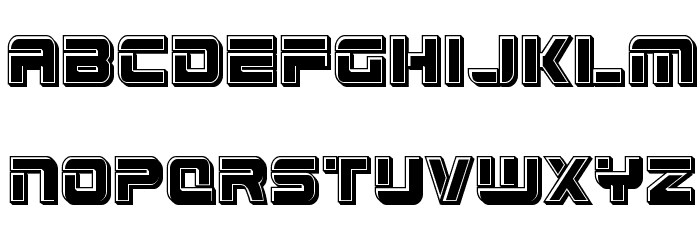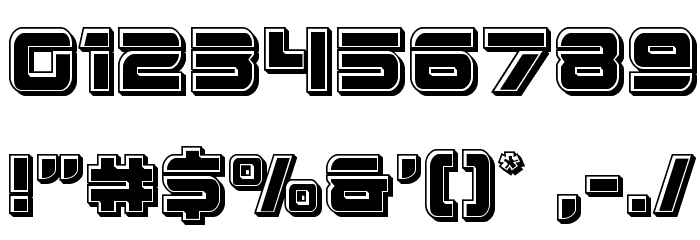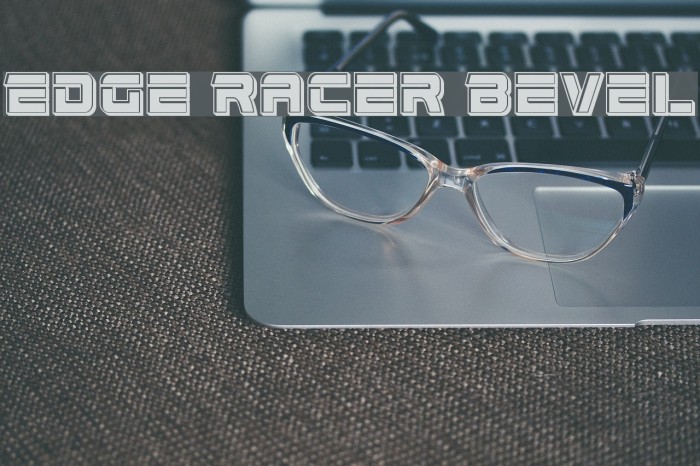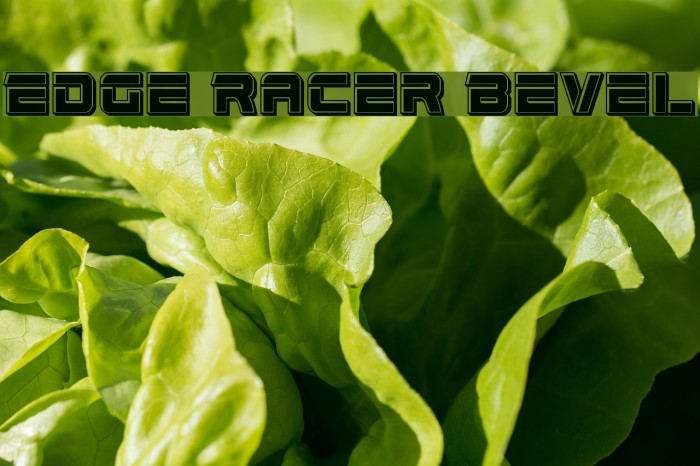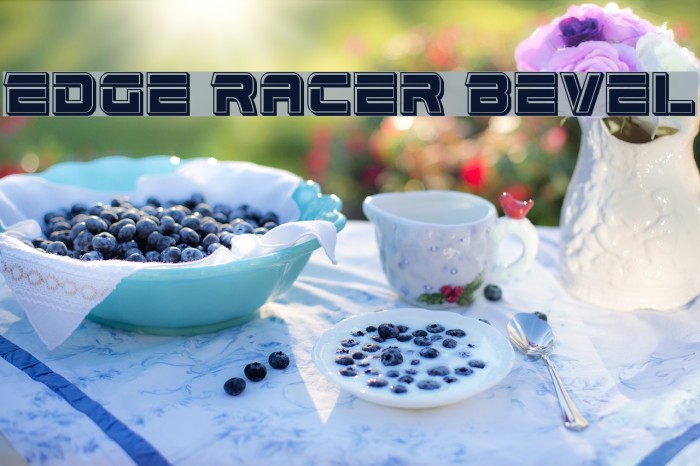
Edge Racer Bevel Font
This font features a bold, geometric design with a distinct three-dimensional effect. The characters are outlined with a thick border, creating a beveled appearance that adds depth and dimension. The style is reminiscent of futuristic or sci-fi themes, with sharp angles and clean lines that give it a modern, edgy look. The uppercase and lowercase letters maintain a consistent style, while the numerals and special characters complement the overall design. This font is ideal for projects that require a strong visual impact and a contemporary aesthetic.
A bold, geometric font with a three-dimensional, beveled design.
- Proposed Projects: Ideal for sci-fi themed posters, video game titles, and futuristic branding.